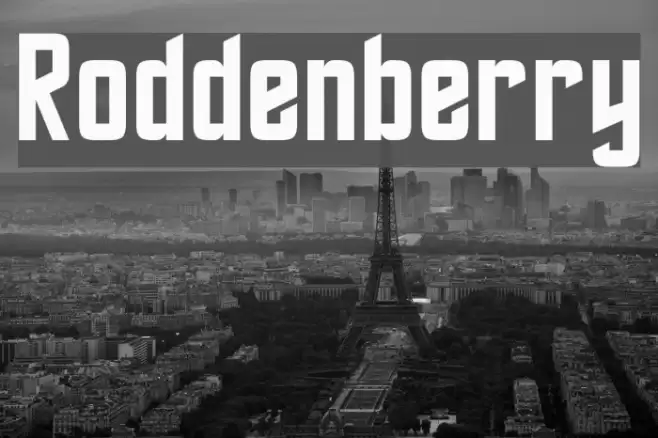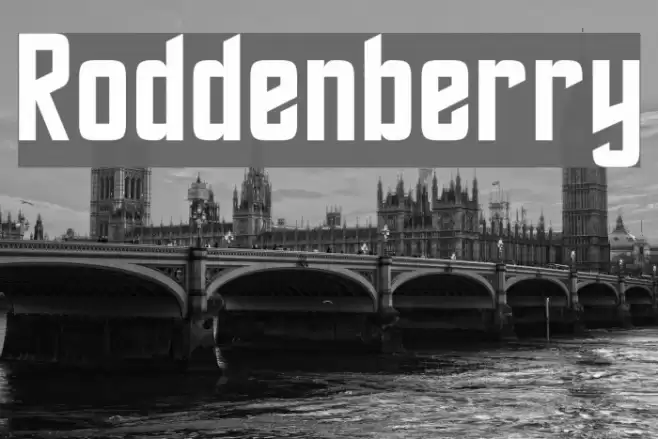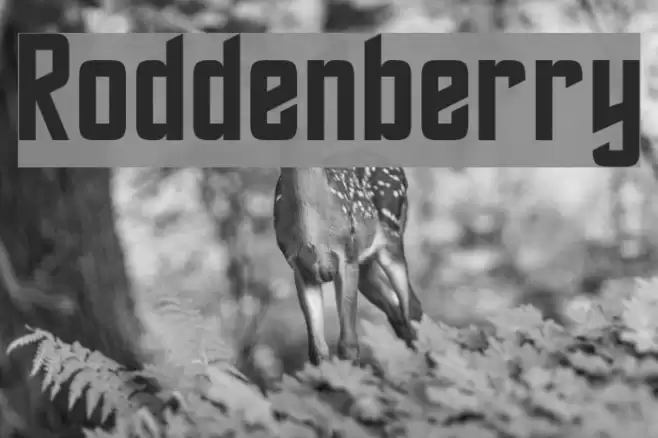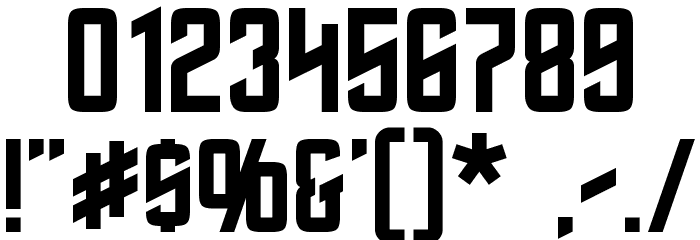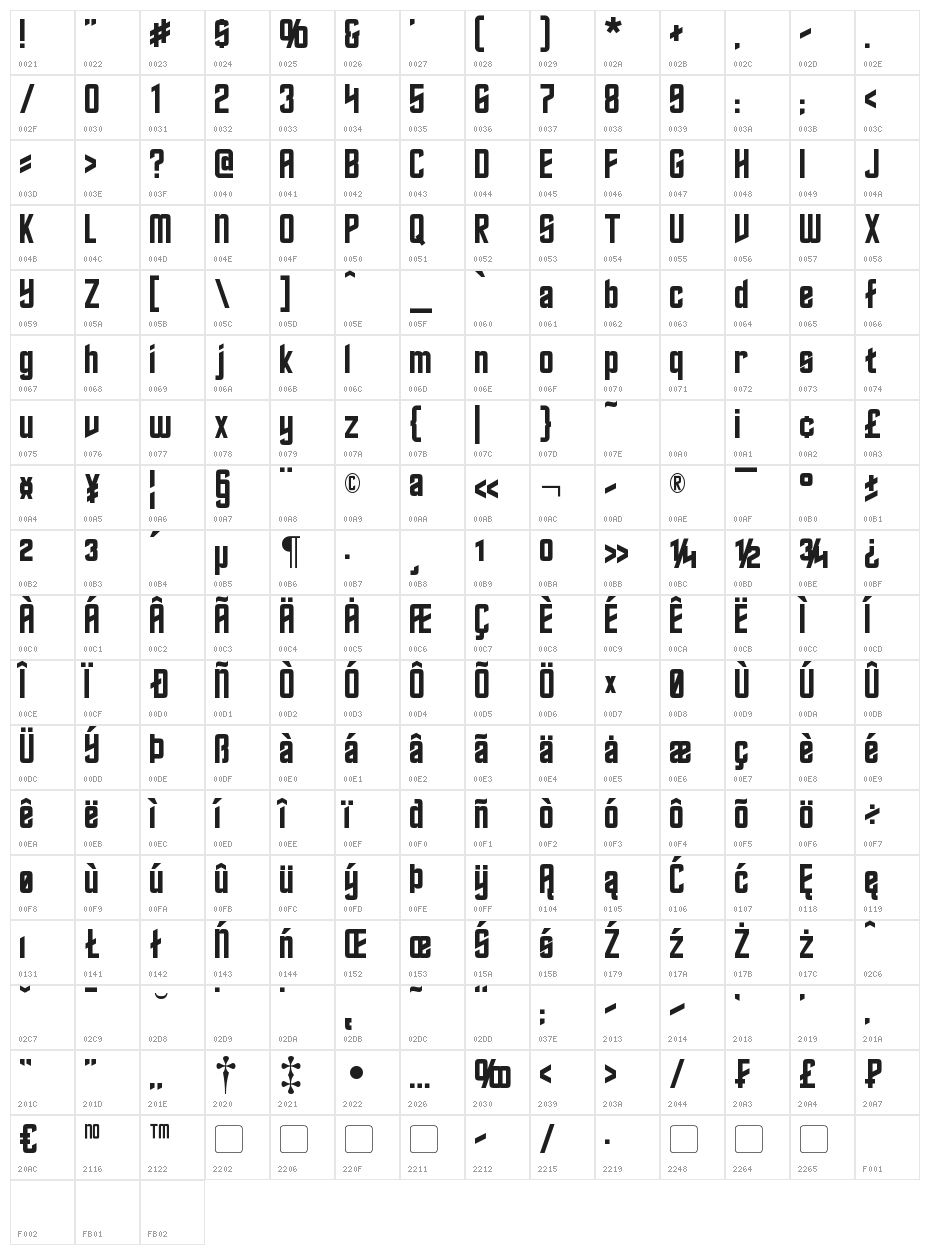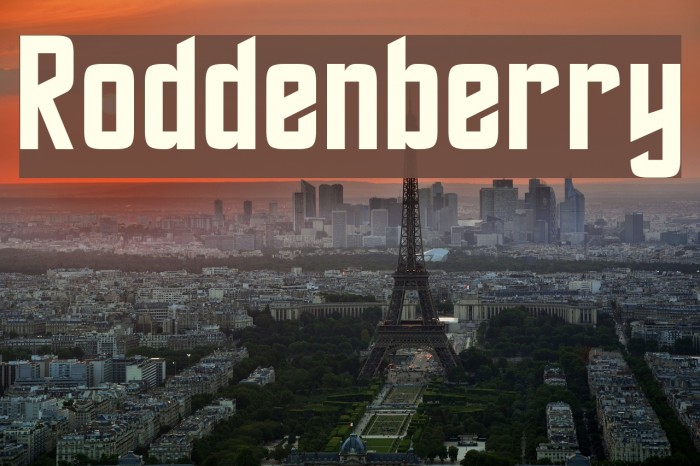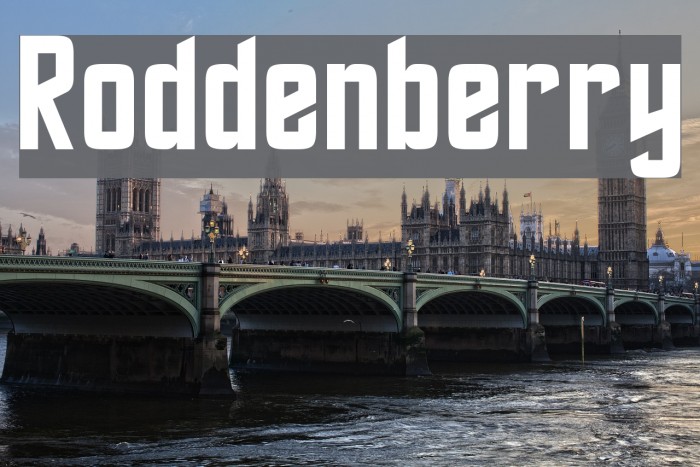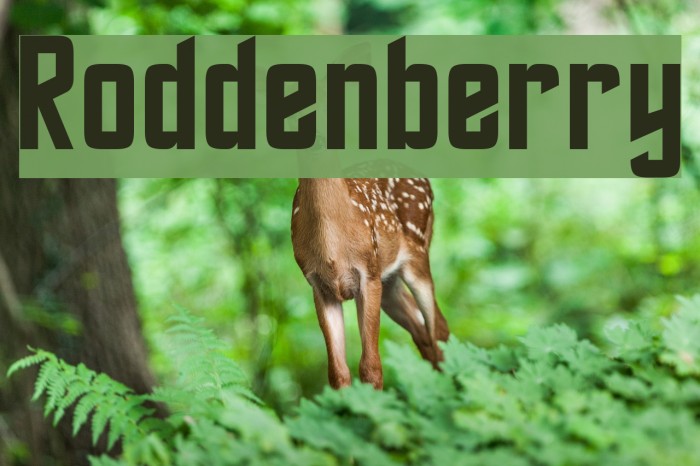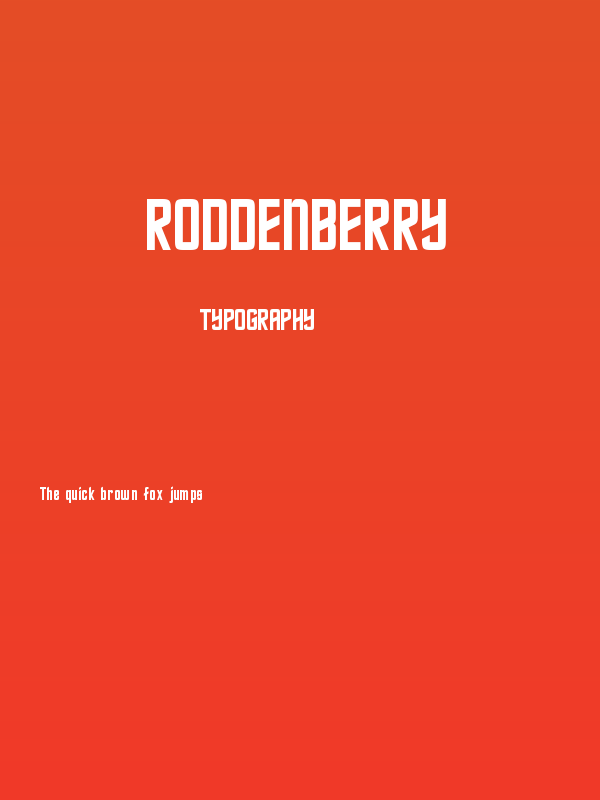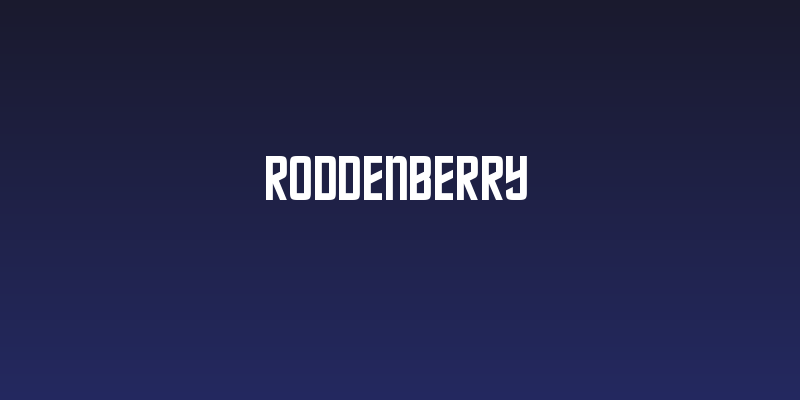
Roddenberry Font
Roddenberry Description
This font features a bold and futuristic design with sharp, angular lines and a geometric structure. The uppercase letters are tall and narrow, giving a sense of height and modernity. The lowercase letters maintain a consistent style, with unique elements such as the slashed 't' and distinct 'g'. The numerals are equally bold and follow the same angular design, ensuring consistency across all characters. Special characters are designed to match the overall aesthetic, making this font suitable for projects that require a strong, modern look.
A bold, futuristic font with sharp, angular lines and a geometric structure from Uncategorized fonts.